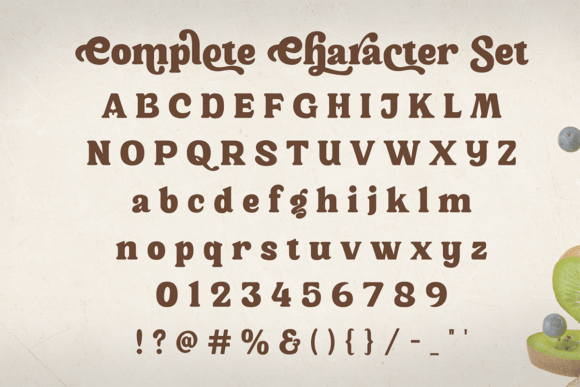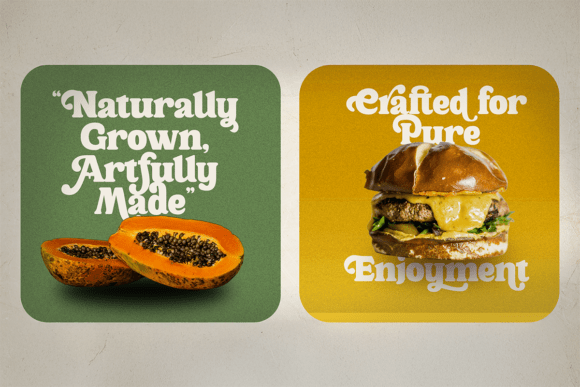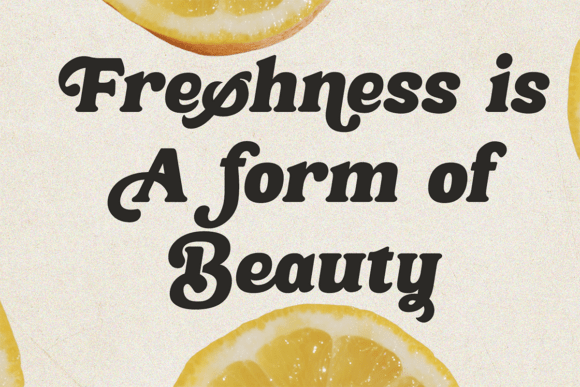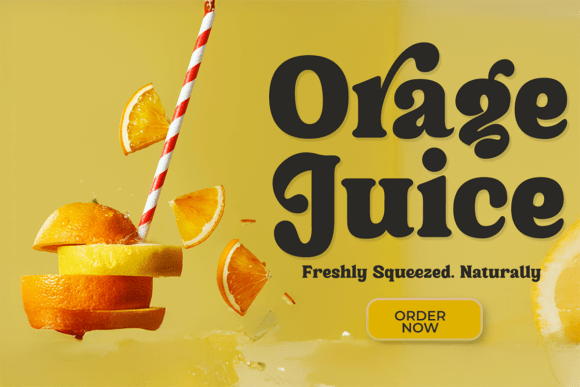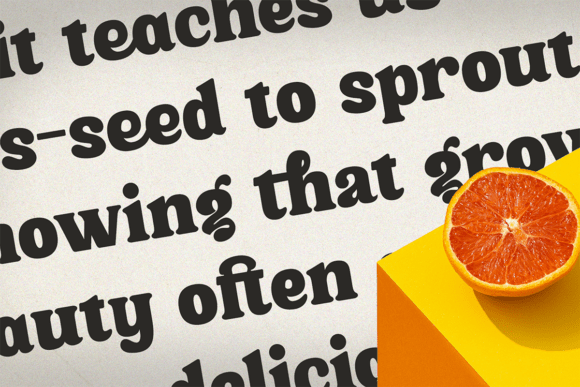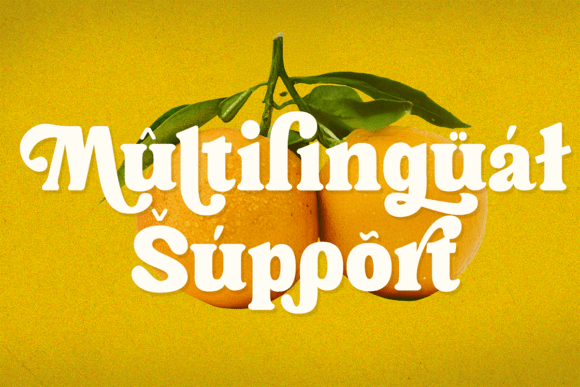
Discover the Elegance of Andalima Font: A Timeless Serif for Modern Design
In the world of typography, few fonts manage to capture the essence of classic elegance while still feeling fresh and modern. Andalima Font is one such typeface that effortlessly blends vintage charm with contemporary design sensibilities. Inspired by the grace of classic botanical illustrations and the sophistication of timeless editorial typography, Andalima brings a unique blend of refinement and natural beauty to any design project.
The Inspiration Behind Andalima
Andalima’s design roots are deeply embedded in the rich tradition of botanical illustrations and editorial typography. These influences are evident in the font’s graceful curves, organic contrast, and subtly handcrafted details. Each letterform is carefully crafted to evoke a sense of nostalgia, reminiscent of beautifully crafted vintage prints, while still maintaining a modern aesthetic that feels both refined and approachable.
Key Features of Andalima Font
- Elegant Serif Design: Andalima’s serifs are gentle and refined, contributing to the font’s overall elegance and sophistication.
- Organic Contrast: The font features a subtle contrast between thick and thin strokes, giving it a dynamic and engaging appearance.
- Handcrafted Details: Subtle handcrafted touches add a layer of authenticity and craftsmanship to the font, making it perfect for brands that value uniqueness and quality.
- Excellent Readability: Despite its decorative personality, Andalima maintains excellent readability, making it suitable for a wide range of applications, from body text to display headlines.
Applications of Andalima Font
Andalima’s versatility makes it an excellent choice for various design projects. Here are some of the areas where Andalima truly shines:
- Packaging Design: Add a touch of elegance and sophistication to your product packaging with Andalima. Its unique blend of vintage charm and modern refinement makes it perfect for luxury brands and products that emphasize quality and craftsmanship.
- Editorials and Magazines: Bring a sense of nostalgia and timelessness to your editorial designs with Andalima. Its classic appeal and readability make it an excellent choice for articles, features, and headlines.
- Logo Design: Create a lasting impression with a logo designed using Andalima. The font’s elegant and artistic rhythm lends itself well to creating memorable and impactful brand identities.
- Display Headlines: Make a statement with Andalima in your display headlines. Its graceful curves and organic contrast ensure that your message stands out while conveying a sense of sophistication and elegance.
Why Choose Andalima Font?
In a world where design trends are constantly evolving, Andalima offers a refreshing blend of classic charm and modern sophistication. Here are a few reasons why designers and crafters might choose Andalima for their projects:
- Authenticity: Andalima’s design echoes the timelessness of classic typography, offering an authentic aesthetic that resonates with audiences looking for genuine and high-quality design.
- Craft: The subtle handcrafted details in Andalima reflect a high level of craftsmanship, making it an excellent choice for brands that prioritize quality and attention to detail.
- Beauty: With its elegant serifs and smooth flowing terminals, Andalima brings a level of beauty to any design, elevating the visual appeal of packaging, editorials, logos, and more.
| Author | Lettercorner Studio |
Andalima Font is a beautiful addition to the world of typography, offering a unique blend of vintage elegance and modern refinement. Its inspiration from classic botanical illustrations and editorial typography makes it a versatile typeface suitable for a wide range of design applications. Whether you’re a designer looking to add a touch of sophistication to your project or a crafter seeking a font that embodies authenticity and beauty, Andalima is an excellent choice. With its graceful curves, organic contrast, and subtly handcrafted details, Andalima is poised to bring a warm, nostalgic charm to any design it touches.
Incorporate Andalima into your design projects and experience the elegance of a timeless serif that balances decorative personality with excellent readability. Perfect for brands that want to convey authenticity, craft, and beauty, Andalima captures the essence of old-world print with a modern, curated aesthetic.